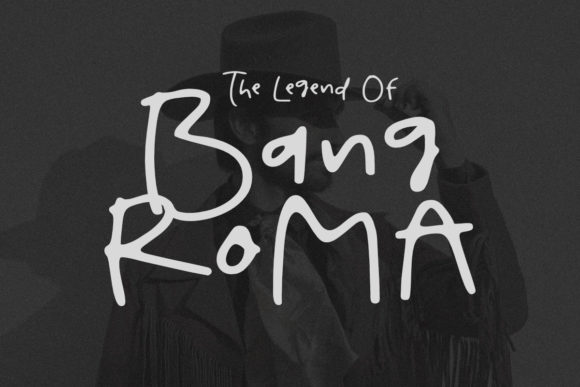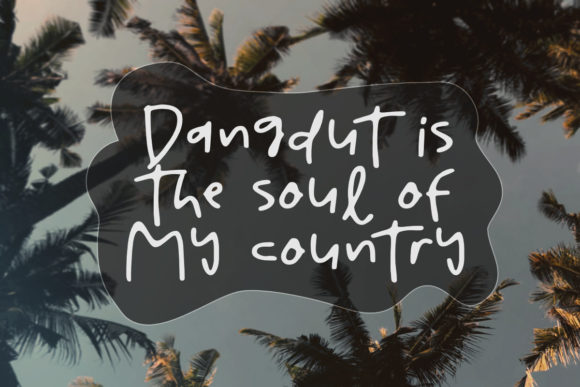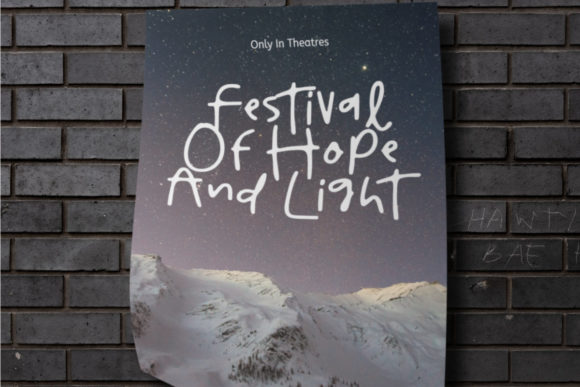
Introduction to King of Dangdut Font
Have you ever been working on a creative project and suddenly, you need a font that captures the essence of a chalkboard? The soft, handwritten script of a chalkboard can instantly transport your design to a nostalgic era. This is exactly what the King of Dangdut Font brings to the table – a charming, simple, and authentic look that adds a personal touch to your designs.
As a valuable design resource, the King of Dangdut Font is perfect for creating eye-catching chalkboard quotes, educational materials, or even decorative backgrounds with a transparent background. Its high-quality design makes it an excellent choice for designers who want to elevate their projects without compromising on aesthetics.
Key Features of King of Dangdut Font
- Unique Dangdut-inspired design, ideal for creative projects and design resources
- Includes a range of glyphs and characters, perfect for designers working on Dangdut-themed projects
- Perfect for designers looking for a unique and authentic Dangdut-inspired font for their creative projects
Honest Review: King of Dangdut Font
As a designer, I’m always on the lookout for unique and high-quality design resources to elevate my creative projects. The King of Dangdut Font caught my attention, and I decided to give it a try.
What works well: ✨ I was impressed by the font’s vibrant and energetic vibe, perfect for creating eye-catching visuals. The font’s bold and playful style is ideal for designs that need a fun and lively touch. Additionally, the font’s transparent background makes it easy to layer and combine with other design elements.
Overall impression: The King of Dangdut Font is a great addition to any designer’s toolkit, especially for creative projects that require a bold and playful touch. While it has some limitations, its high quality and unique style make it a valuable design resource.
- Unique and playful style
- Limited character set
The King of Dangdut Font is ideal for use in design projects that require a creative and eye-catching font. Some common use cases include:
- Graphic design projects
- Digital art projects
- Music album covers
- Event posters